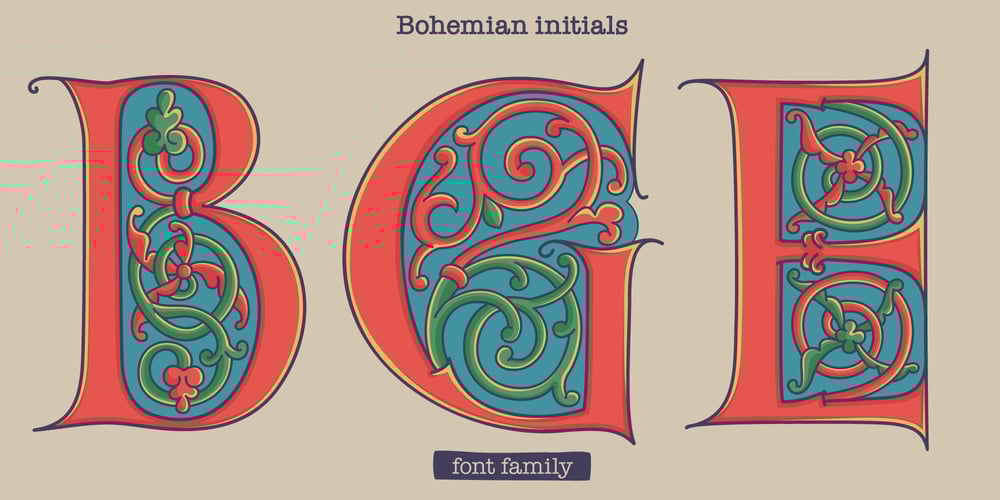
Bohemian Initials Font Family was designed by Roman Korolev and published by Kaer. Bohemian Initials contains 3 styles and family package options. I’m happy to present you the Bohemian initials font family. Regular and Colored styles (Uppercase & Numbers) based on Codex Gigas originated in medieval Bohemia. The manuscript has been dated 1230. The elaborate initials are at the beginning of the main texts and their principal divisions.The painter was aiming to achieve a plastic depiction of the trailing vines of the initials, and he painted with solid colours. He used only four of the primary colours cinnabar red, blue, green and yellow, brightly toned, as well as white accents and contours.The trailing vines of the initial letters are painted in a decorative, advanced Romanesque style, already bordering on naturalism. The plant taken as the starting point is the acanthus, a thistle-like plant which grows wild in the Mediterranean countries. The decoration of the Devil’s Bible is not the work of an amateur. Scholars have concurred: it is book illuminations created in Northeast France and Southern England in the so-called Channel style which provided the starting point for the coiled trailing-vine shapes in the initials of the Devil’s Bible.—You can use color fonts in PS CC 2017+, AI CC 2018+, ID CC 2019+, macOS 10.14 Mojave+ Please note that the Canva & Corel & Affinity doesn’t support color fonts!—Please feel free to request any help you need: kaer.pro@gmail.comThank you!